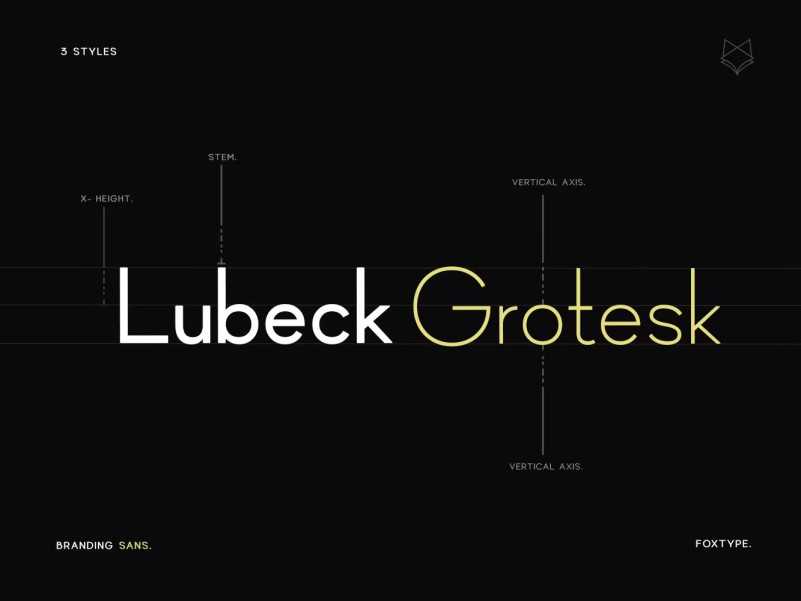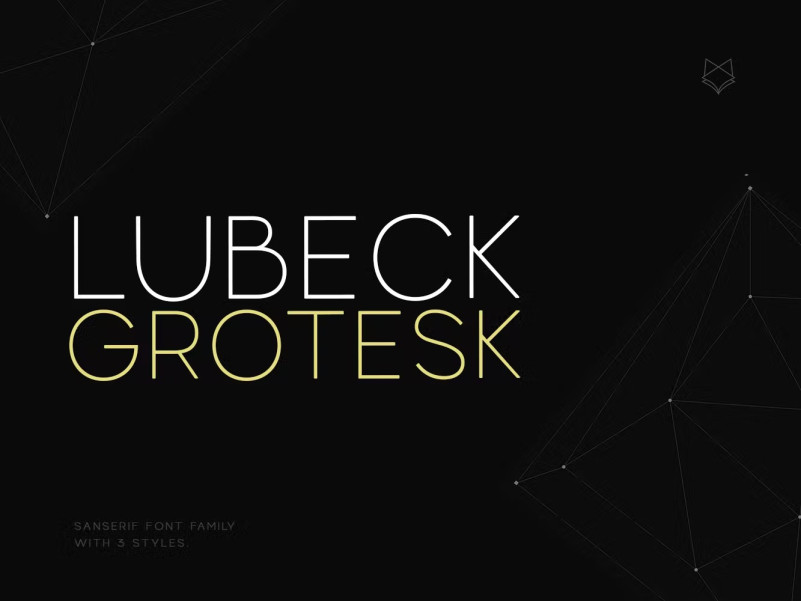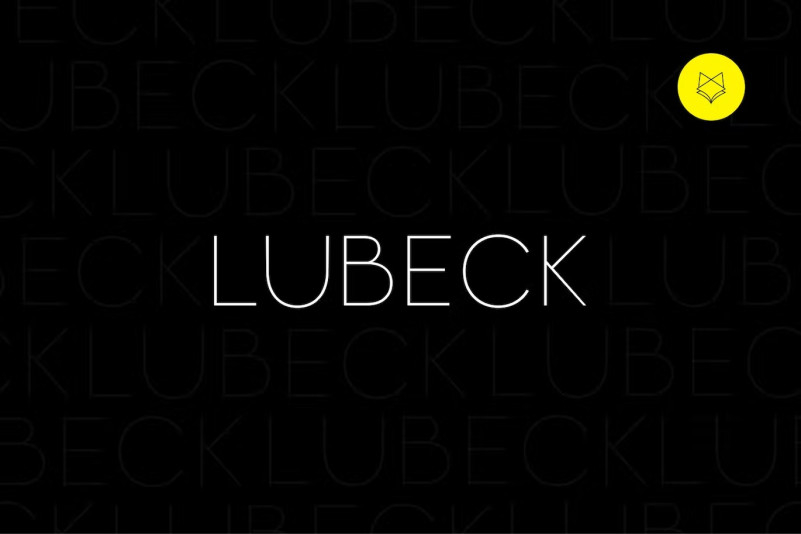
Lubeck Display Typeface
Introducing Lubeck Display , new generation Typeface with 3 Weights. Lubeck Typeface created with the vision of to attract the audience to your brand . The finest details of this typeface are methodically and mathematically created. BrantFord is created with all the tasks of a corporate font and also for the usage in a variety of projects, including branding, logos, titles, headlines, servers, screens, display, digital ads , and everything else.